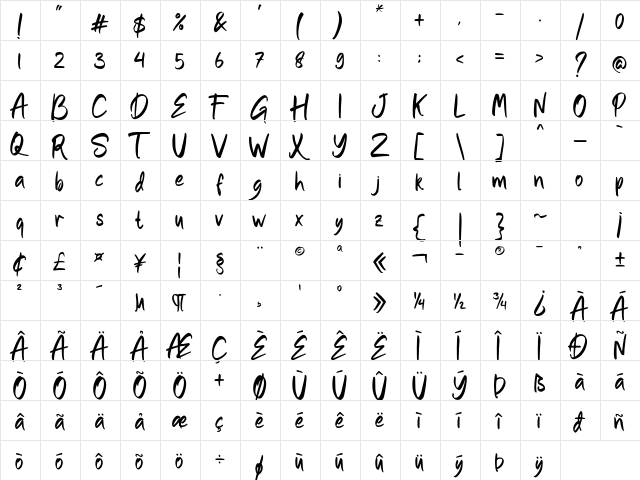
Sachyma (Demo) Regular
Design Context for Sachyma (Demo) Typeface
Sachyma (Demo) is a composed and adaptable typeface that performs quietly and consistently across a wide range of design contexts.
Pro Tip: Use Sachyma (Demo) in both headline and body roles to test its range before committing to a single application.